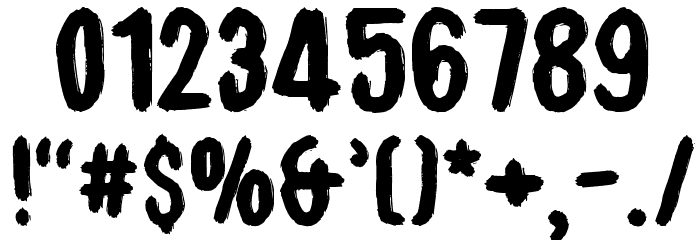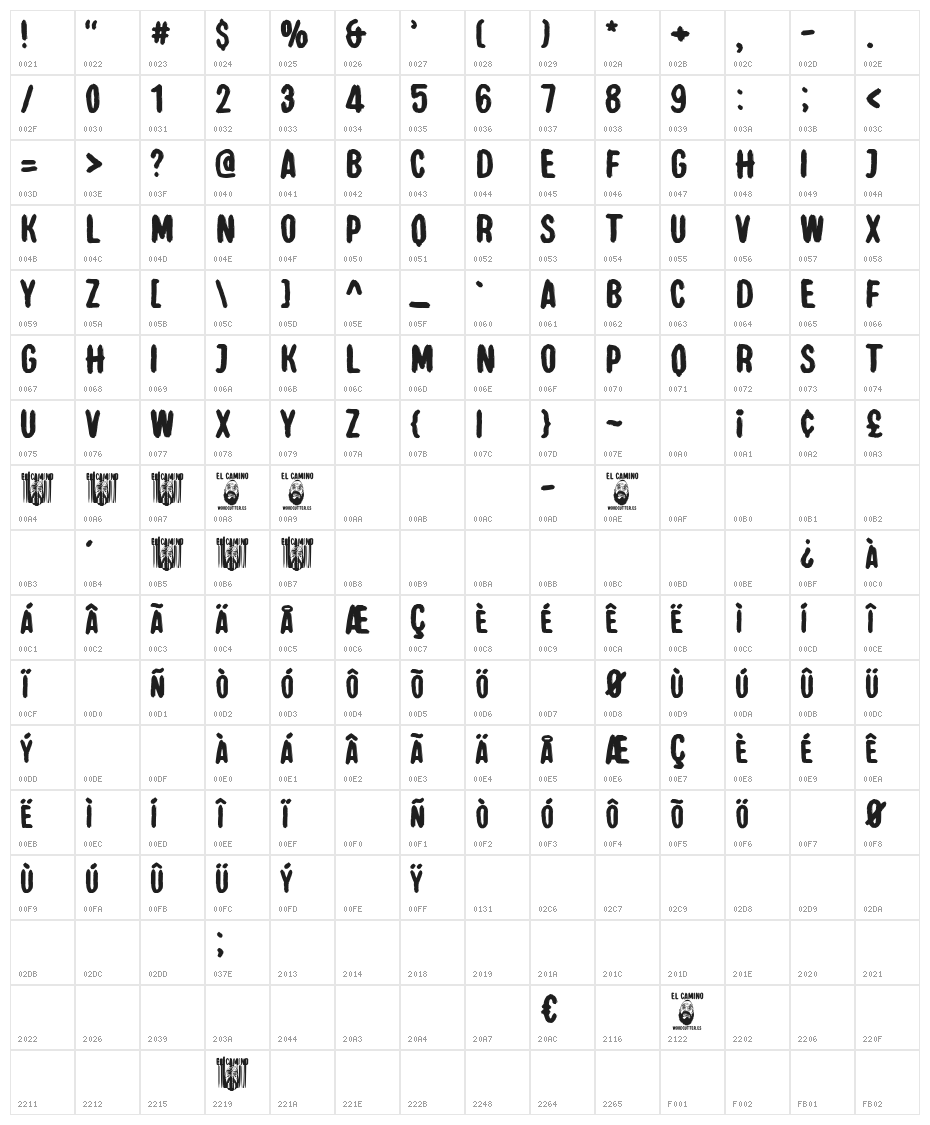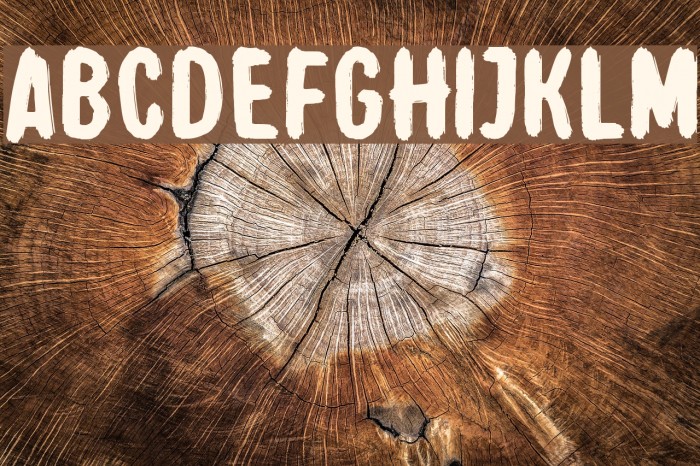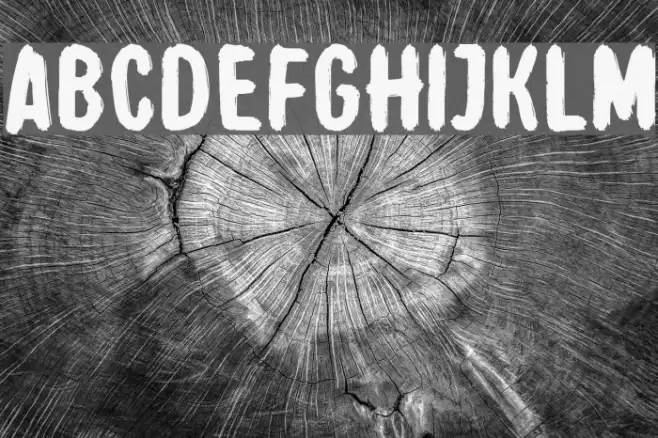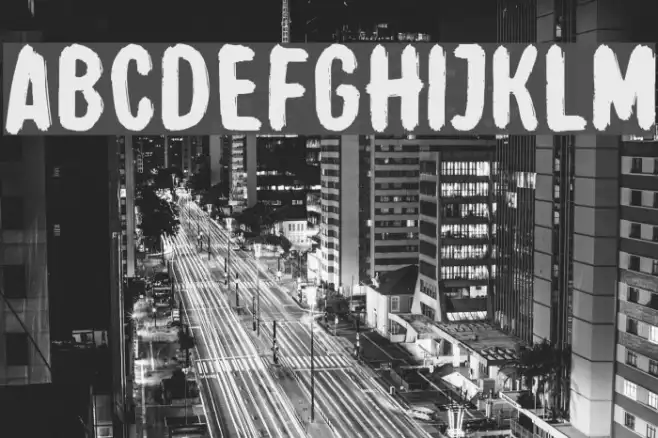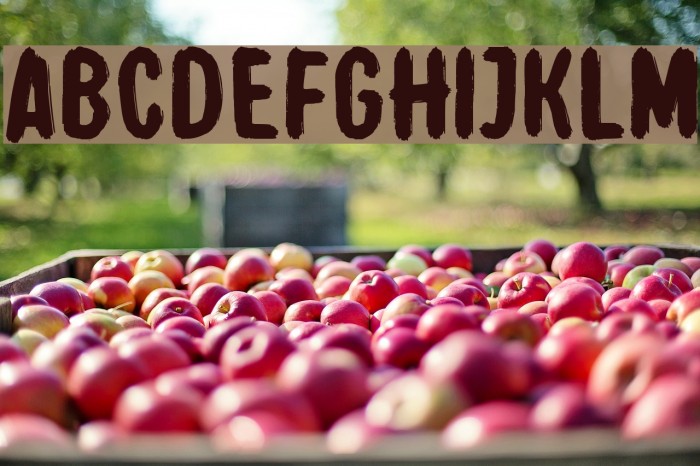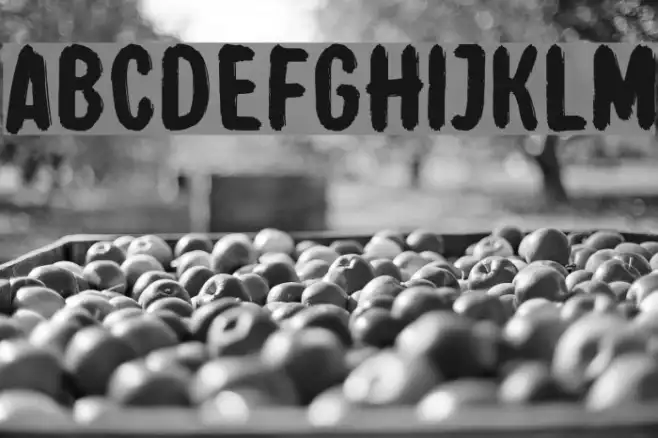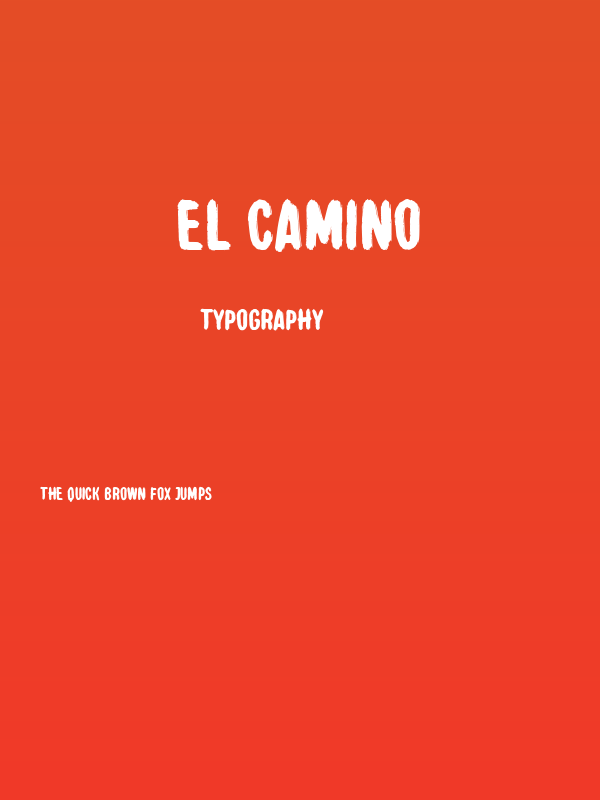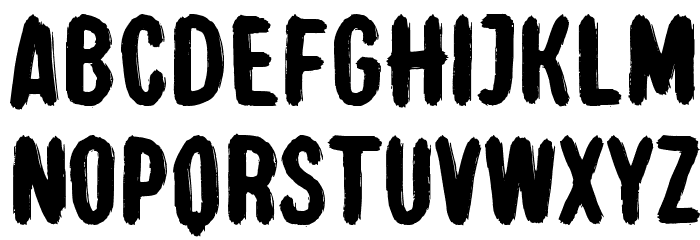
El camino Font
El camino Description
This font features a bold, brush-style design with a hand-painted appearance. The characters are thick and expressive, with a slightly irregular edge that adds a sense of dynamism and energy. The uppercase and lowercase letters maintain a consistent style, with a strong emphasis on vertical strokes. Numbers and special characters are equally bold and maintain the same brush-like texture. This font is ideal for projects that require a strong visual impact and a creative, artistic touch.
| Overall Style | Artistic, Dynamic |
| Proposed Projects | Ideal for posters, branding, packaging, and any creative projects that require a bold, artistic touch. |